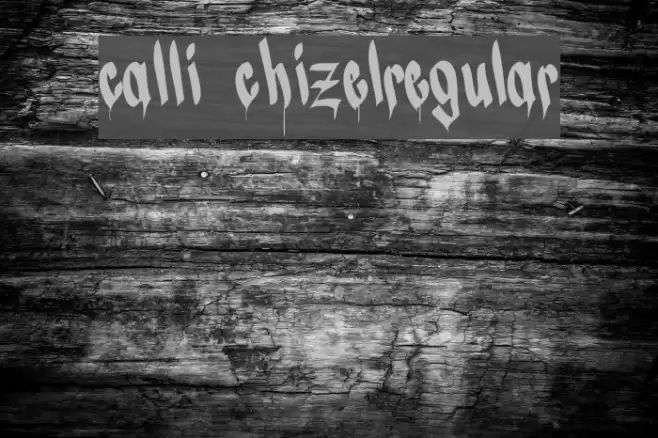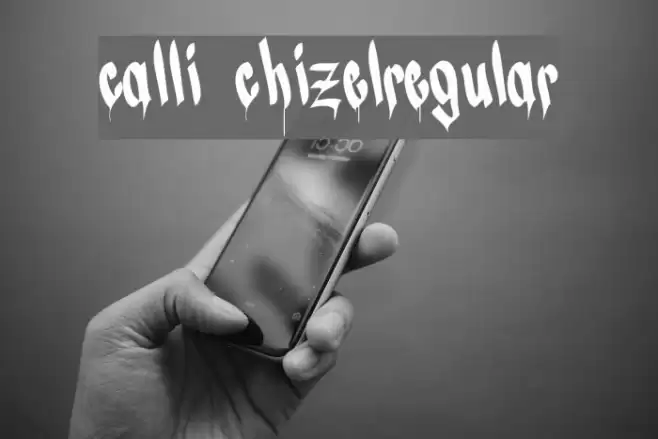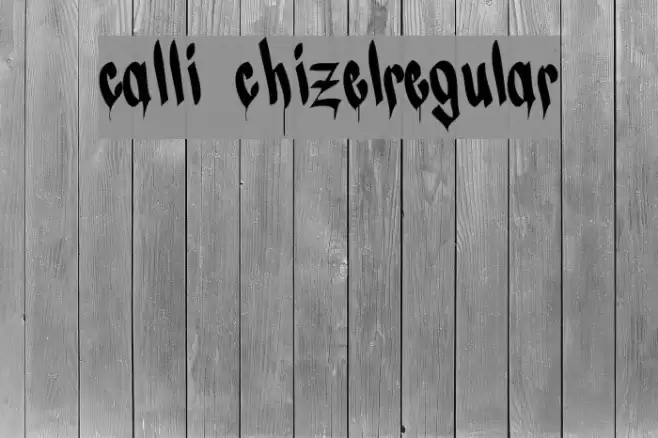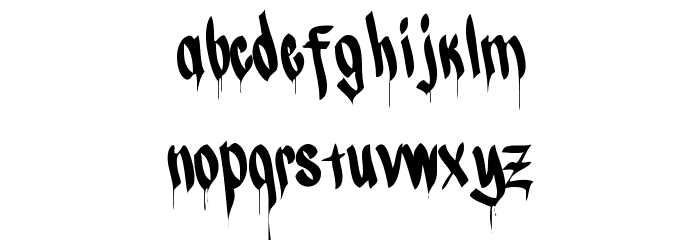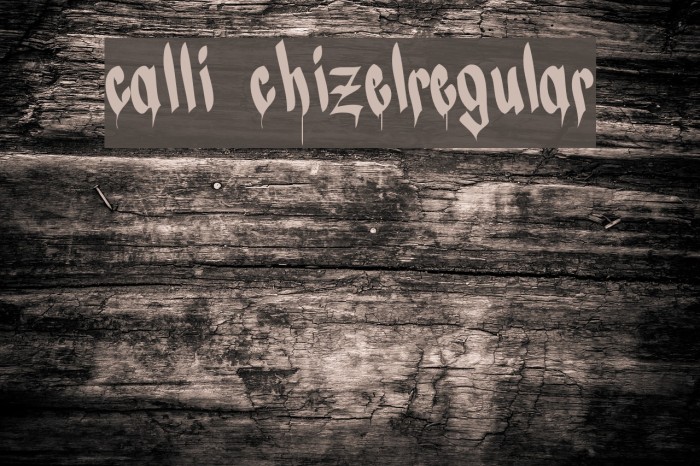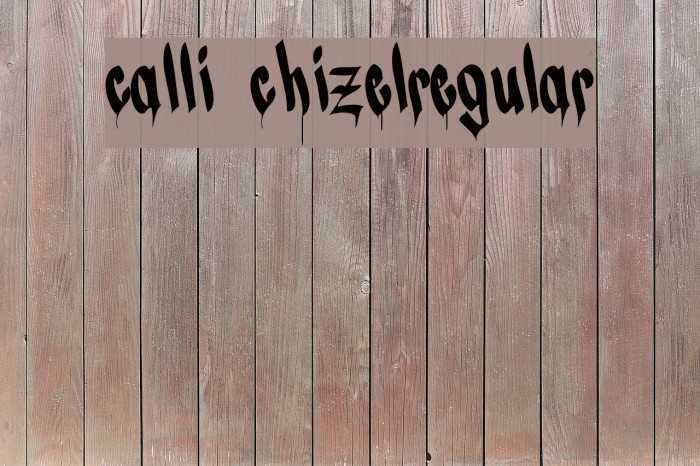
CALLI CHIZELRegular Font
CALLI CHIZELRegular Description
This font features a bold and dramatic style with a distinct graffiti-inspired appearance. The letters have a dripping effect, reminiscent of spray paint, which adds an edgy and urban feel. The strokes are thick and consistent, giving it a strong presence. The overall design is highly decorative, making it suitable for eye-catching headlines or artistic projects. The characters are uniquely styled, with sharp angles and a sense of movement, enhancing its dynamic look.
A bold, graffiti-inspired font with a dripping effect, perfect for urban-themed designs from Uncategorized fonts.
- Proposed Projects: Ideal for street art posters, music album covers, edgy branding, and urban-themed event flyers.
- Overall Style: Urban, Edgy, Artistic